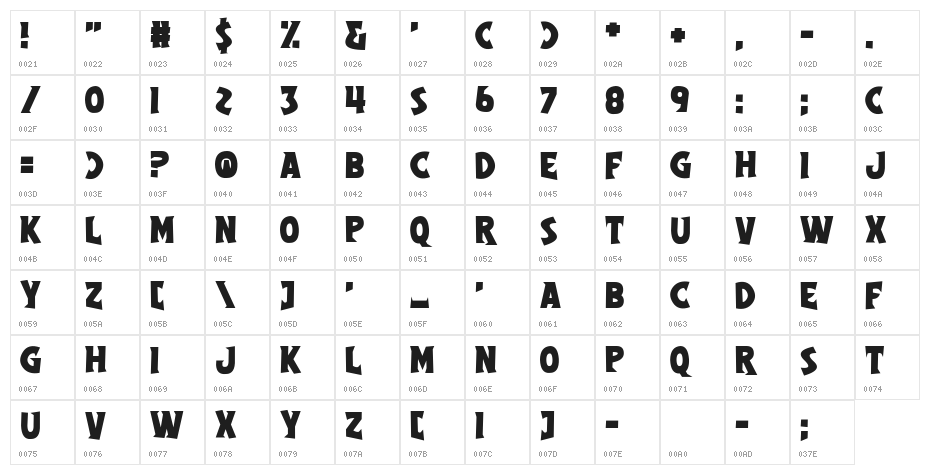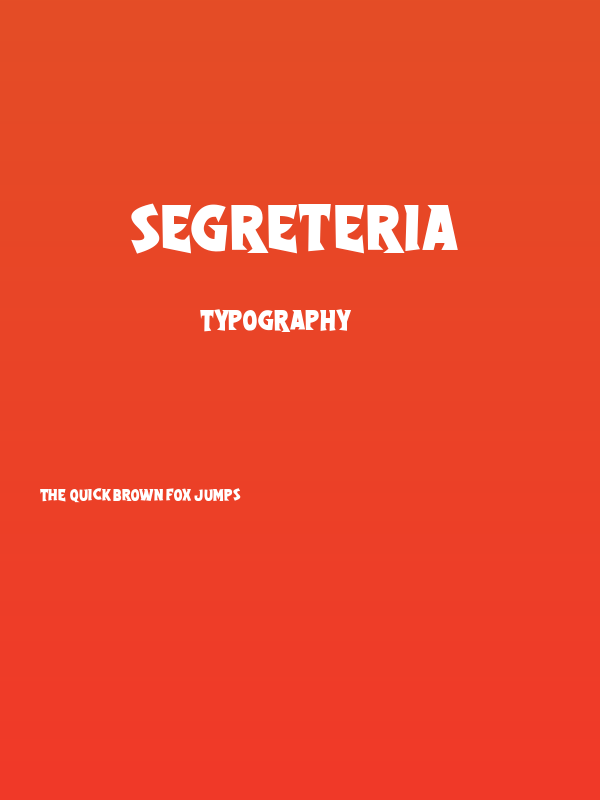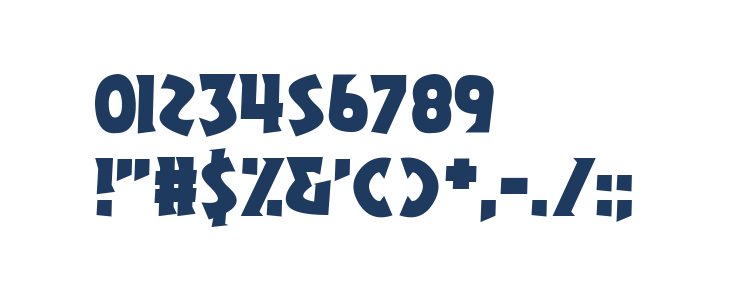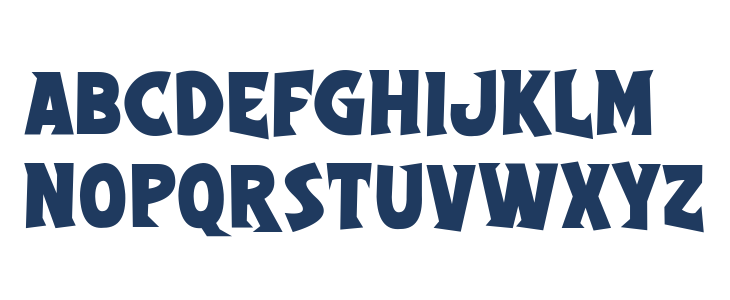
Segreteria Font
Segreteria Description
This font features bold, angular characters with a playful and dynamic appearance. The letters have a slightly irregular shape, giving them a whimsical and energetic feel. The strokes are thick and consistent, contributing to a strong visual impact. The uppercase and lowercase letters maintain a uniform style, while the numbers and special characters complement the overall design. This font's unique style makes it suitable for eye-catching headlines and creative projects.
SEGRETERIA UPPERCASE
SEGRETERIA LOWERCASE
SEGRETERIA OTHER CHARS
| Overall Style | Playful and Energetic |
| Proposed Projects | Ideal for posters, logos, children's books, and any project requiring a fun and energetic typeface. |